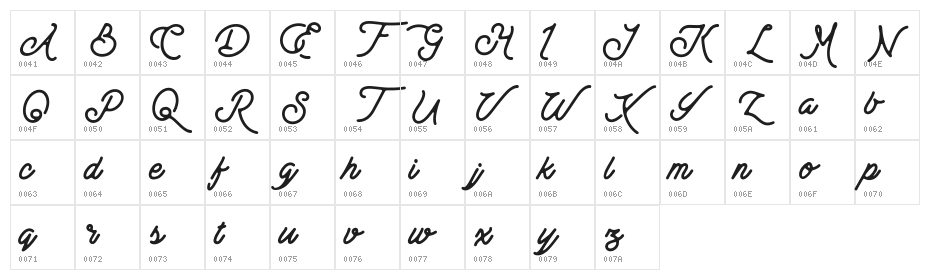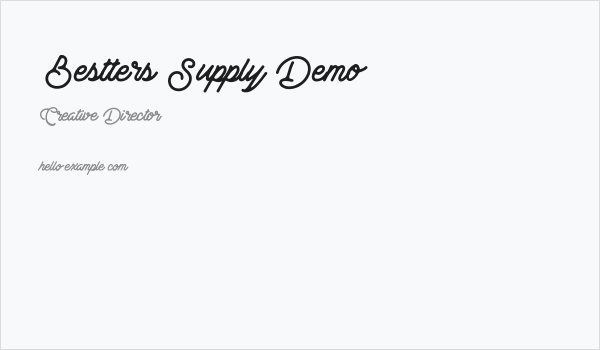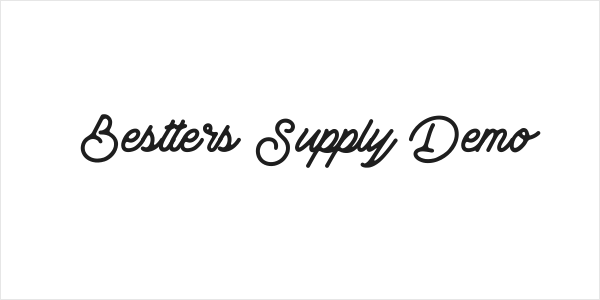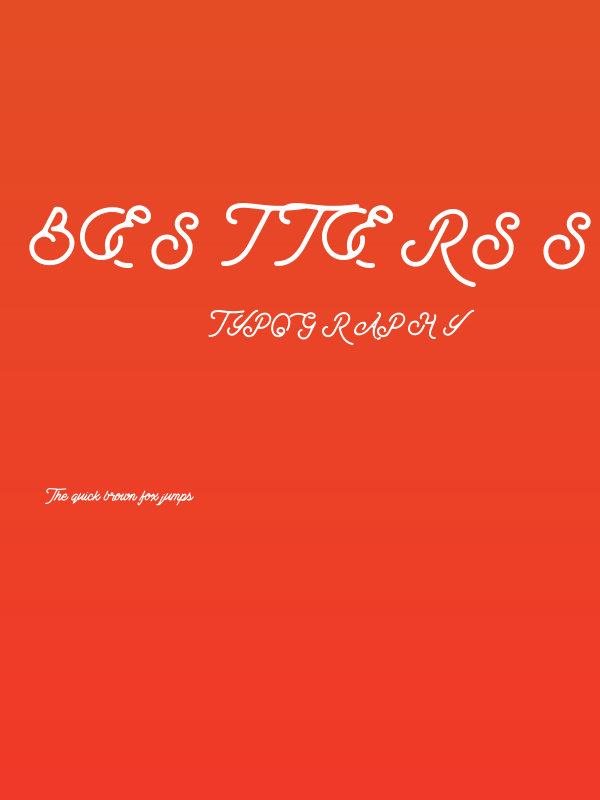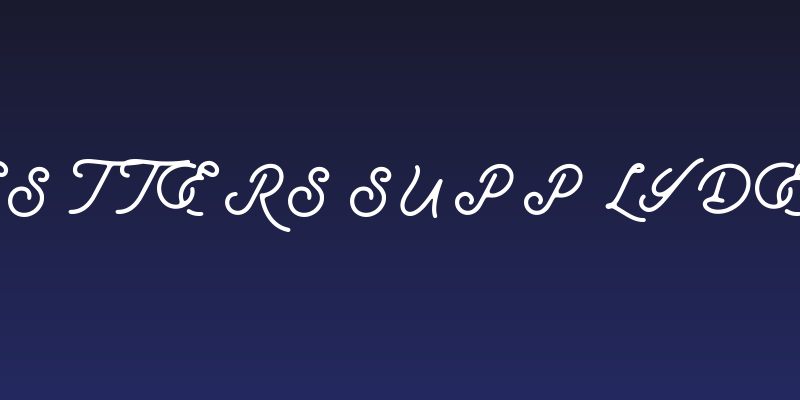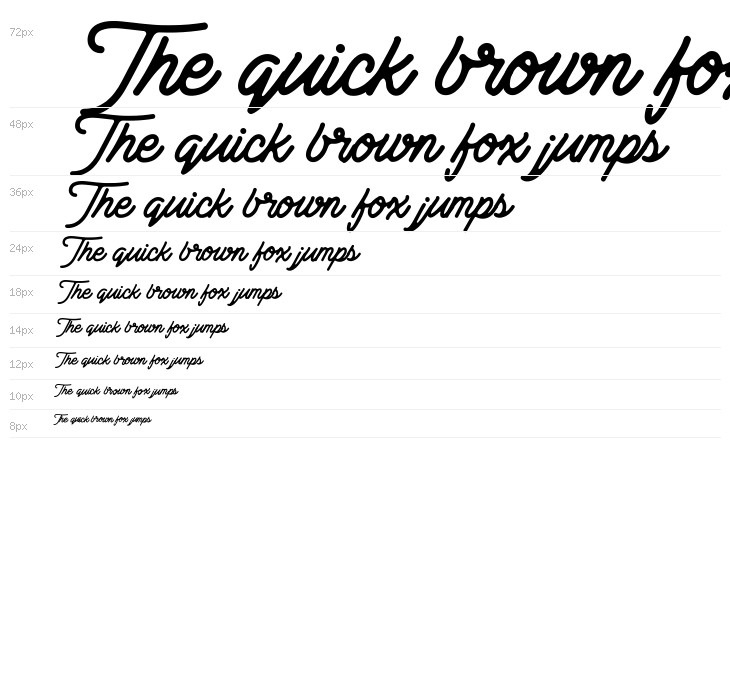
Bestters Supply Demo Font
Bestters Supply Demo Description
This font features a dynamic and flowing script style, characterized by its elegant and cursive letterforms. The uppercase letters exhibit a graceful, looping design with a slight slant, giving them a sophisticated and artistic appearance. The lowercase letters maintain a consistent flow, with smooth connections between each character, enhancing readability while retaining a stylish flair. The numerals and special characters are crafted with the same attention to detail, ensuring a cohesive look across all elements. This font's overall aesthetic is both modern and classic, making it versatile for various design applications.
| Overall Style | Elegant, Modern |
| Proposed Projects | Ideal for wedding invitations, branding, logo design, and elegant stationery. |